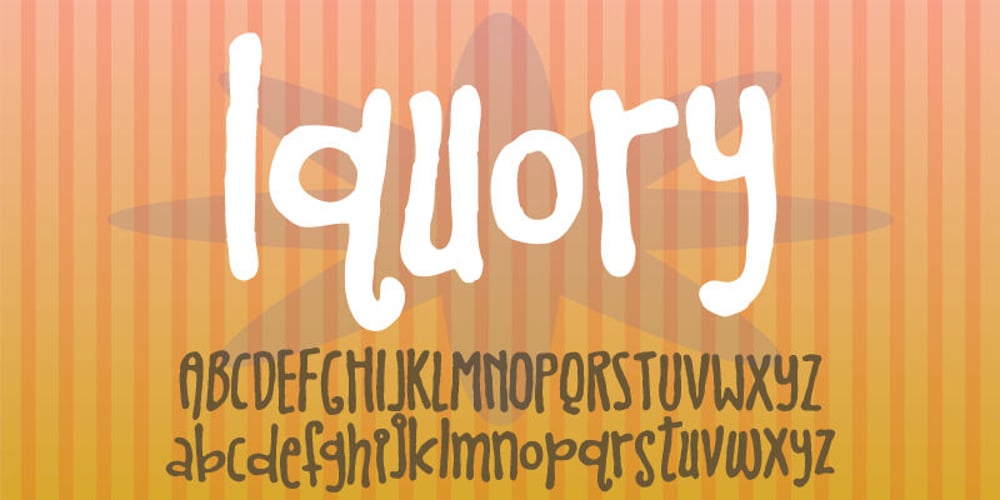
Iquory Font Family was designed by Jakob Fischer and published by PizzaDude.dk. Iquory contains 1 styles and family package options. Iquory is a charming, slightly rugged hand-drawn font. With bouncing letters and unpredictable curves, it could very easily give your text that feeling of randomness you are looking for! While the uppercase is very steady – the lowercase just screams for a party – so what are you waiting for? Oh, I almost forgot – the font comes with some nice ligatures for a handful of double letters! You will need to use OpenType supporting applications to use the autoligatures.